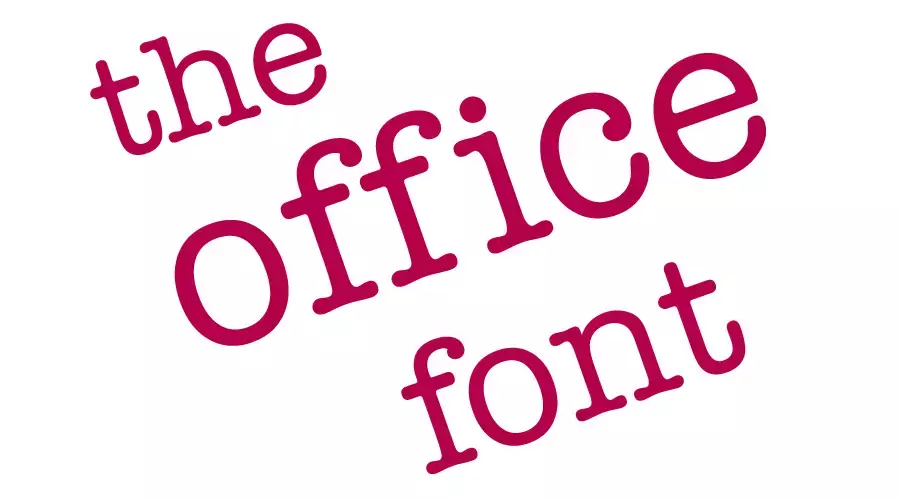
The Office Font
You’re looking for The Office Font, aren’t you? You’ve come to the right place. As most of you are aware, The Office is a popular comedy TV series. It depicts the everyday lives of office workers at a fictional company located in Scranton, Pennsylvania. Greg Daniels created the show, which is an American adaptation of the British sitcom of the same name.
The show has a distinctive logo that uses a serif typeface. We are going to cover all of the answers to this font in this article. So, let’s get started.
What font is the office logo?
The font used for the office logo is American Typewriter Regular.
Logo Lettering vs the font
In 1974, ITC published the font that Joel Kaden and Tony Stan created. Generally, it is classified under the slab serif category, which means it has thick and blocky serifs at the ends of each letter. Slab serif fonts are often used to create a sense of stability, authority, and professionalism.
The American Typewriter Regular font has a vintage and retro feel, evoking the look of typewriters from the past. The font also has some quirky features, such as uneven strokes, rounded corners, and slightly tilted letters. These features add some personality and charm to the font, making it suitable for a comedy show like The Office.
How do I use the Office font?
The Office font can be used for logos, headlines, posters, banners, invitations, labels, and other things. The font can also be paired with other fonts to create contrast and harmony.
For example, you can combine American Typewriter Medium with a sans-serif font like Helvetica or Arial for a modern and clean look. Or you can use it with a script font like Brush Script or Zapfino for a more playful and creative look.
Alternatively, you can use some free fonts that are similar to American Typewriter Medium. For example,
• Courier New: This is a classic monospaced typewriter font that comes pre-installed on most computers. It has a simple and clean appearance, but lacks some of the quirks and details of American Typewriter Medium.
• Special Elite: This is a free Google font that resembles an old typewriter with worn-out keys. It has more texture and variation than Courier New, but it may be harder to read at smaller sizes.
• Rockwell: This is another slab serif font that has a strong and geometric look. It has more uniformity and elegance than American Typewriter Medium, but it may be less playful and expressive.
About the Office Font Web Series
The Office Font is an example of how typography can enhance the identity and mood of a TV show. By using the American Typewriter Medium font, The Office creates a contrast between its modern setting and its vintage logo. It also conveys humor, nostalgia, and irony through its choice of font.